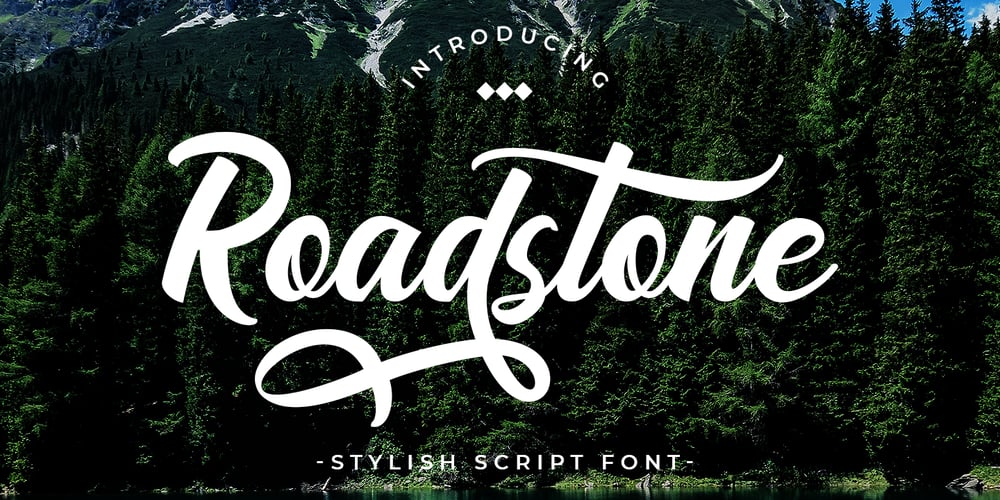
Roadstone
Roadstone font
Roadstone Font Family was designed by Putra Novembria Candra Kusuma and published by Putracetol. Roadstone contains 1 styles and family package options. Roadstone is a modern stylish script font that inspired by streetwear and combination hand lettering style. Bold in every character, making this font the perfect fit for your apparel project.Also ideal for logos, badge, label, apparel, club, event, handwritten quotes, product packaging, header, poster, merchandise, social media & greeting cards.Roadstone come with opentype feature like a lot of alternates. Its help you to make beautiful lettering.This font is also support multi language